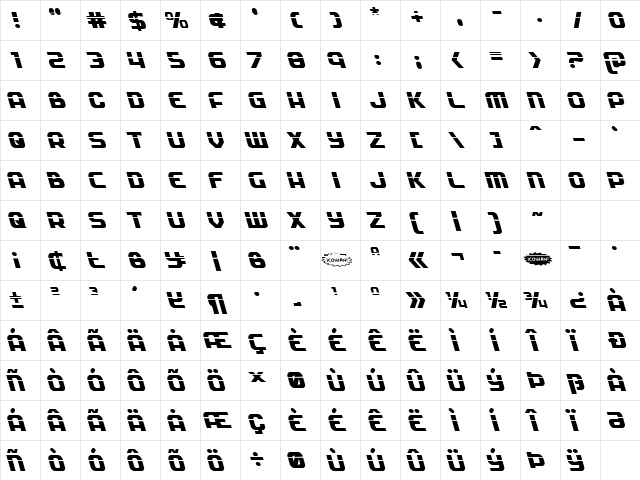
Soldier Laser Leftalic Italic
Design Context for Soldier Laser Leftalic
Soldier Laser Leftalic has the no-nonsense character of military stencilling and tactical signage, projecting authority and directness. The slanted form adds forward momentum and visual energy.
A strong choice for security brands, outdoor gear, and high-stakes visual communication.
Pro Tip: Try Soldier Laser Leftalic in all-caps for the most authentic military signage feel. It pairs well with stark, minimal layouts and muted colour palettes.